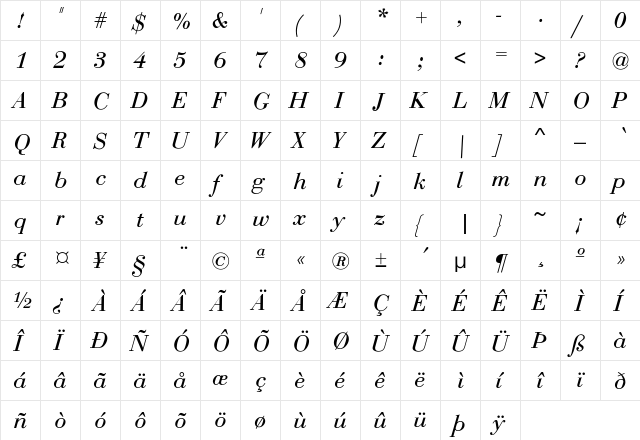
Bodoni-Normal-Italic Regular Font Preview
Bodoni-Normal-Italic Regular
Design Context for Bodoni-Normal-Italic Typeface
Bodoni-Normal-Italic is a composed and adaptable typeface that performs quietly and consistently across a wide range of design contexts. Its italic angle brings a sense of urgency and motion to the letterforms.
Pro Tip: Use Bodoni-Normal-Italic for emphasis, pull quotes, and subheadings where its slanted energy can add rhythm to the layout.